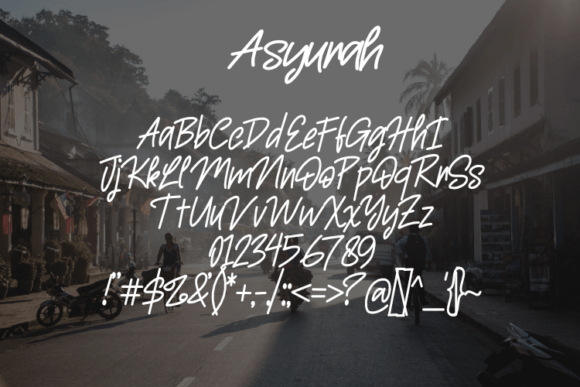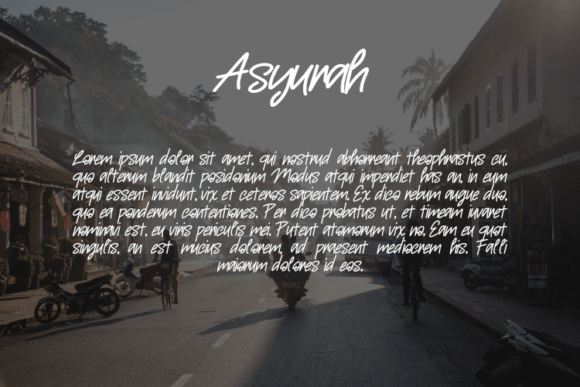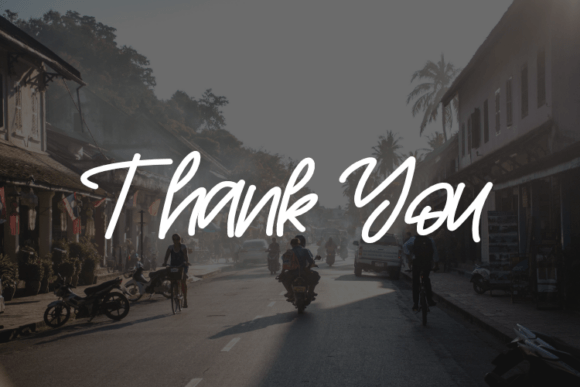
Unlock Your Creative Potential with Asyurah Font
Are you a designer, crafter, or DIY enthusiast looking for the perfect font to elevate your apparel designs? Look no further than Asyurah, the quintessential font crafted specifically for inventive and creative projects. With its dynamic and versatile design, Asyurah is the ideal choice for embellishing everything from t-shirts to handbags, and beyond.
The Perfect Font for Creative Apparel Design
Asyurah is more than just a font – it’s a tool for self-expression and creativity. Its unique design allows it to adapt flawlessly to any design concept, making it the perfect choice for designers and crafters who want to push the boundaries of their creativity. Whether you’re creating custom apparel for a client, designing a logo for your own brand, or simply looking for a unique way to express yourself, Asyurah is the perfect choice.
Breathe New Life into Your Creations
Asyurah is more than just a font – it’s a way to breathe new life into your creations. With its dynamic and versatile design, Asyurah can be used to create a wide range of designs, from bold and edgy to elegant and sophisticated. Whether you’re looking to add a touch of personality to your designs or create a cohesive brand identity, Asyurah is the perfect choice.
Key Features of Asyurah Font
- Dynamic and Versatile Design: Asyurah’s unique design allows it to adapt flawlessly to any design concept, making it perfect for a wide range of creative projects.
- Perfect for Apparel Design: Asyurah is specifically crafted for inventive apparel design, making it the perfect choice for designers and crafters who want to create custom apparel.
Tips for Using Asyurah Font
Here are a few tips for getting the most out of Asyurah:
- Experiment with Different Sizes and Colors: Asyurah looks great in a wide range of sizes and colors, so don’t be afraid to experiment and find the perfect combination for your design.
- Pair with Other Fonts: Asyurah pairs well with a wide range of fonts, so try pairing it with other fonts to create a unique and cohesive design.
- Use for a Variety of Projects: Asyurah is perfect for a wide range of projects, from custom apparel to DIY crafts and beyond.